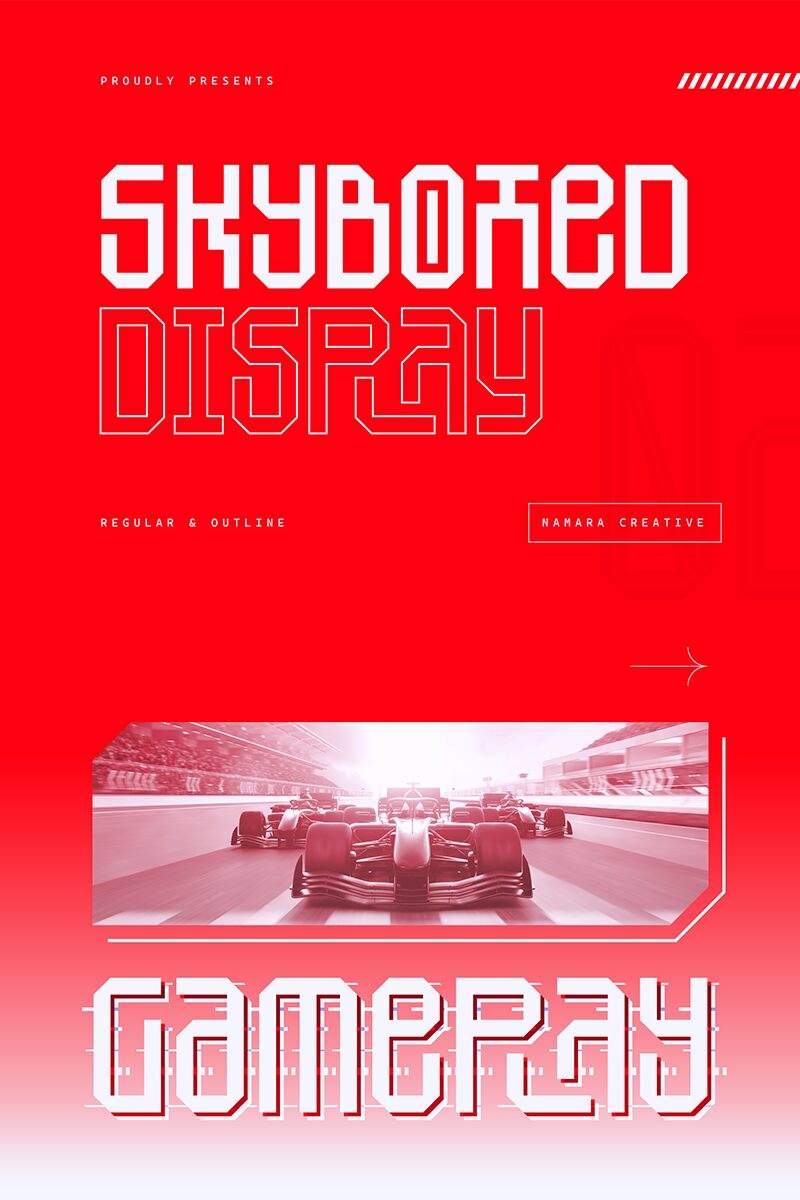
SkyBoxed Display
SkyBoxed Display font by Namara Creative is a free techno display typeface. The signature look comes from its boxed, octagonal counters and clipped corners, giving each letter a sturdy, mech-like profile that locks into a steady grid. In the SkyBoxed family, this variant feels dense and assertive—thick strokes, tight rhythm, and straight edges that read crisp even at a glance.
Using SkyBoxed Display, headlines hit with sci‑fi confidence: game titles, esports logos, tech event posters, gadget packaging, UI headers, movie trailers, and synthwave album art all benefit from its armored geometry. This free font loves big sizes; push it oversized and keep tracking snug. For body copy, pair it with a light geometric sans to soften the edges while letting the SkyBoxed Display forms carry the punch.